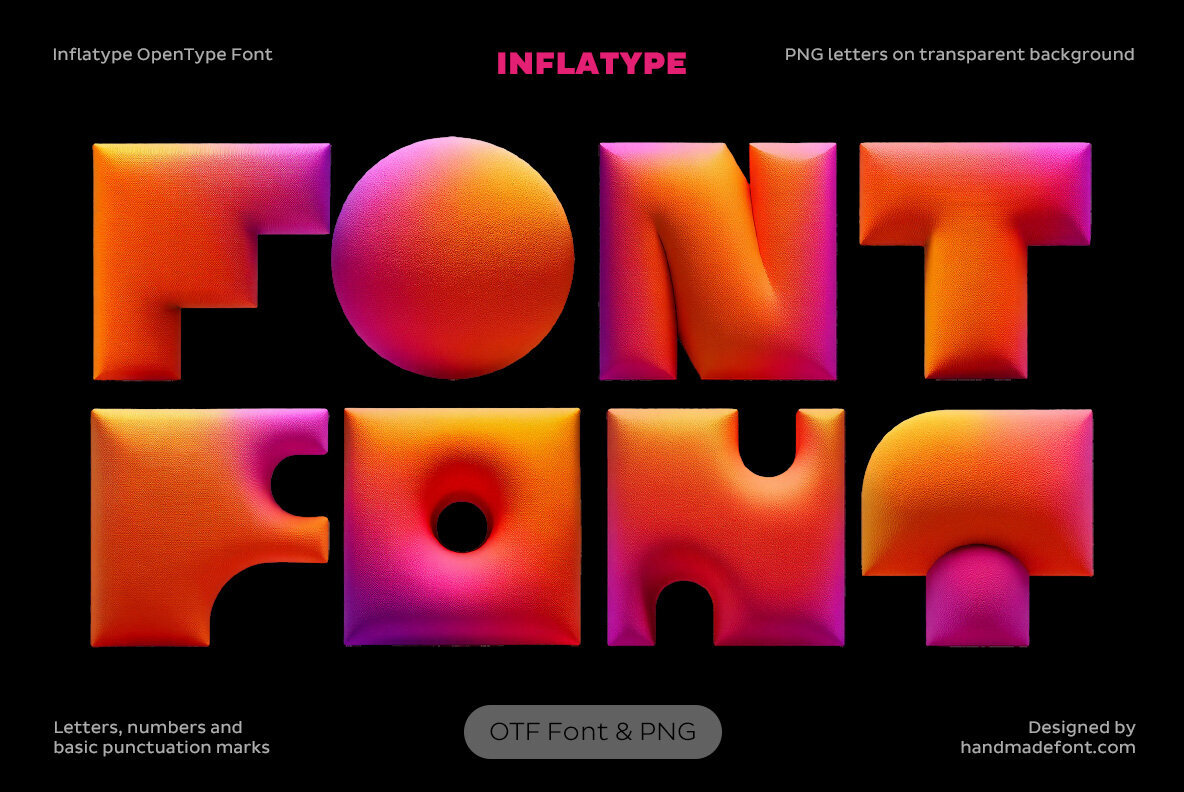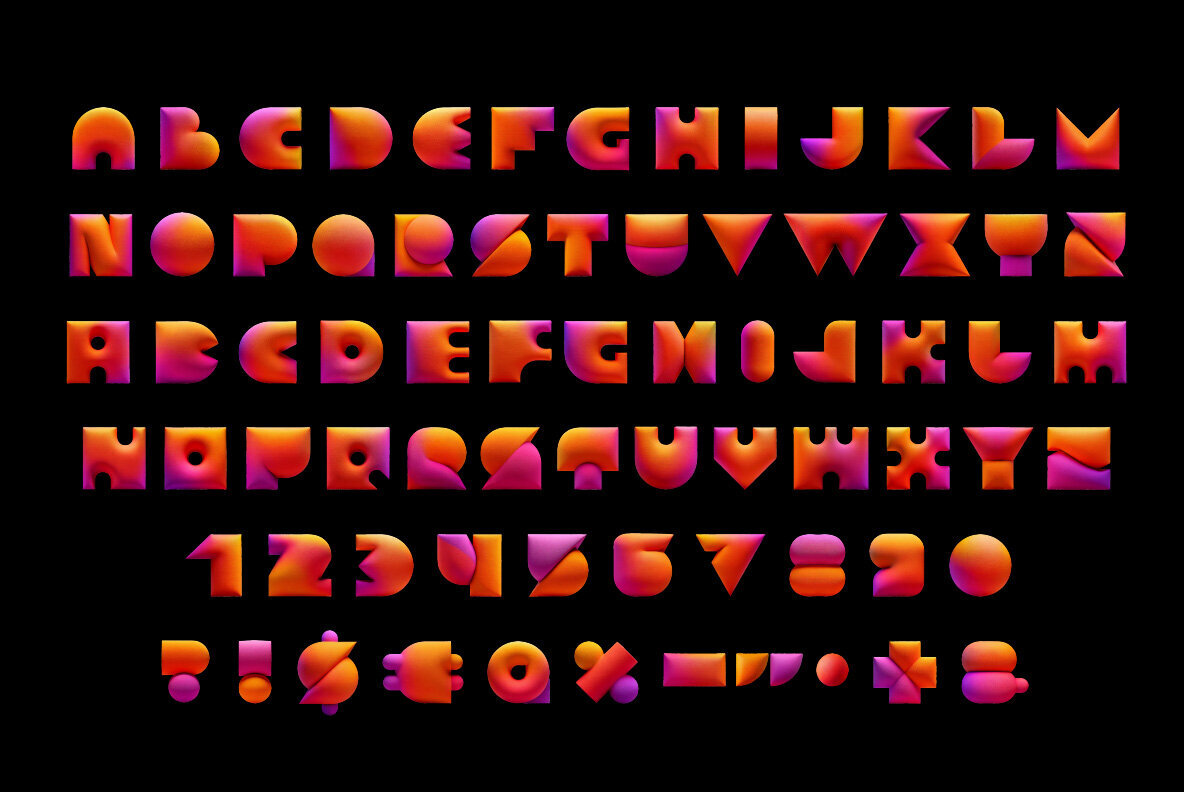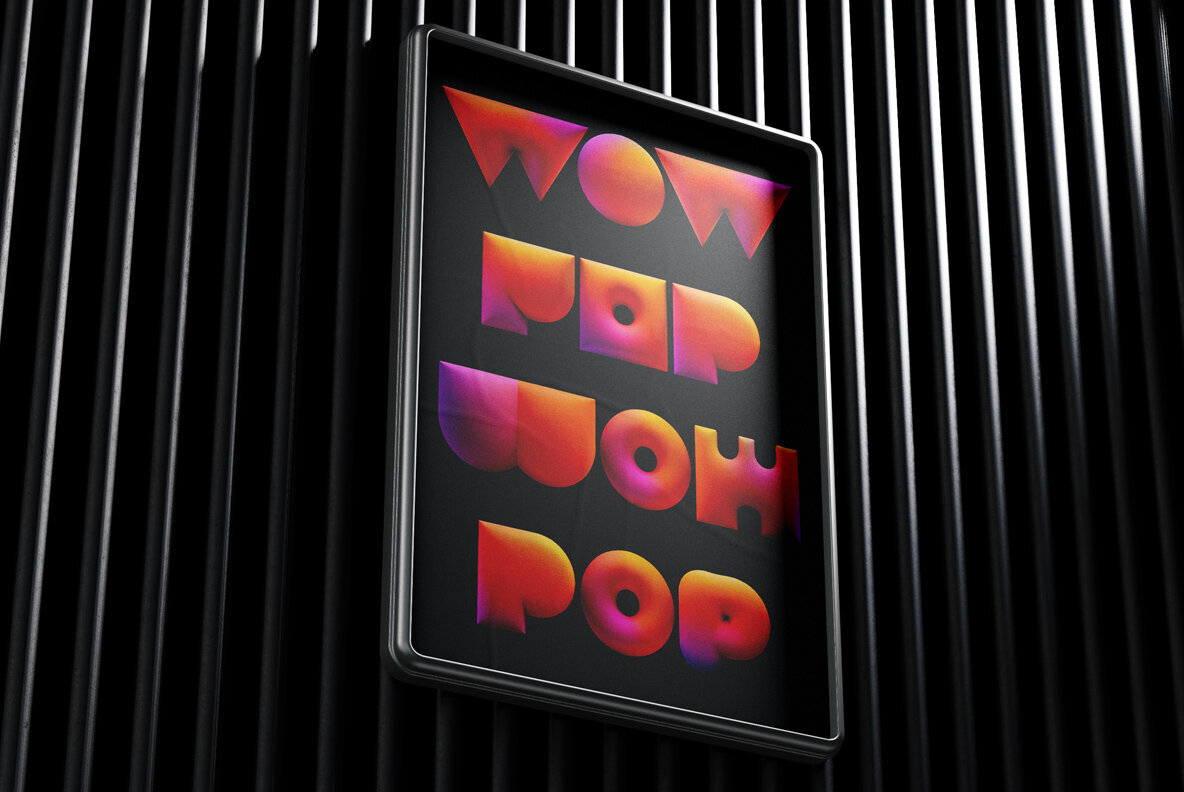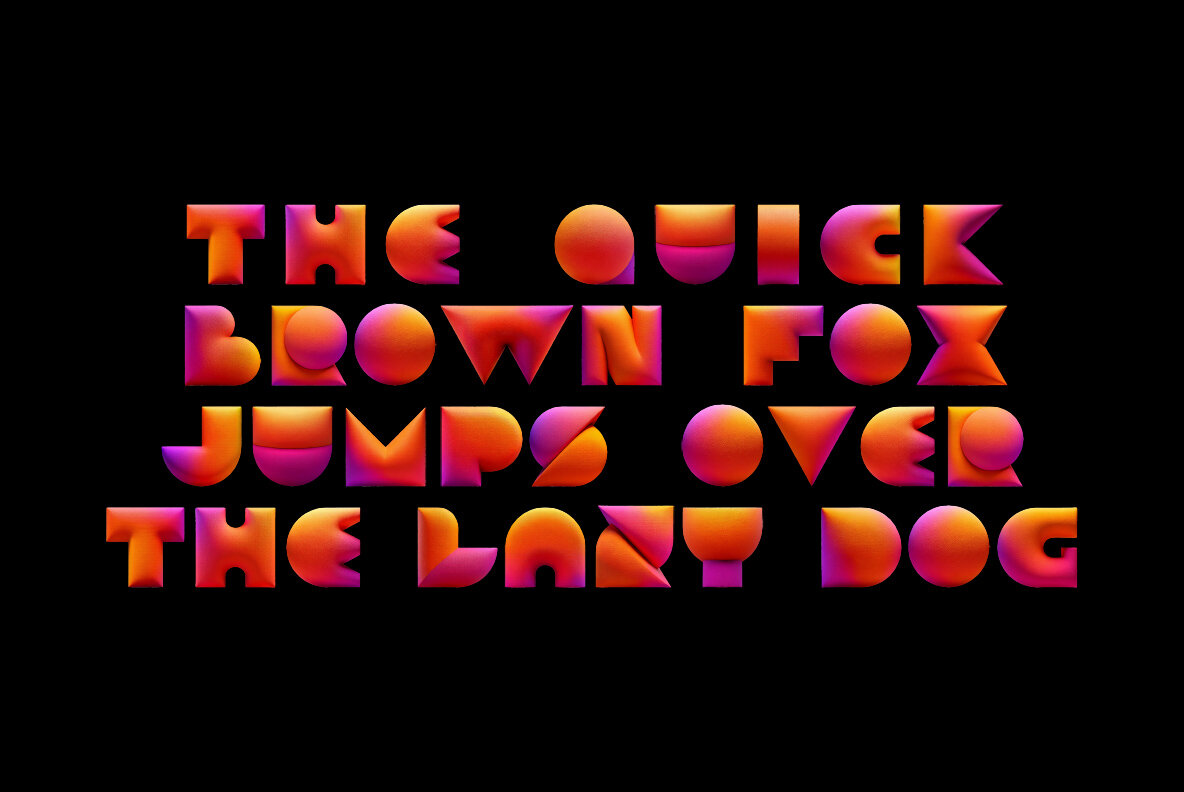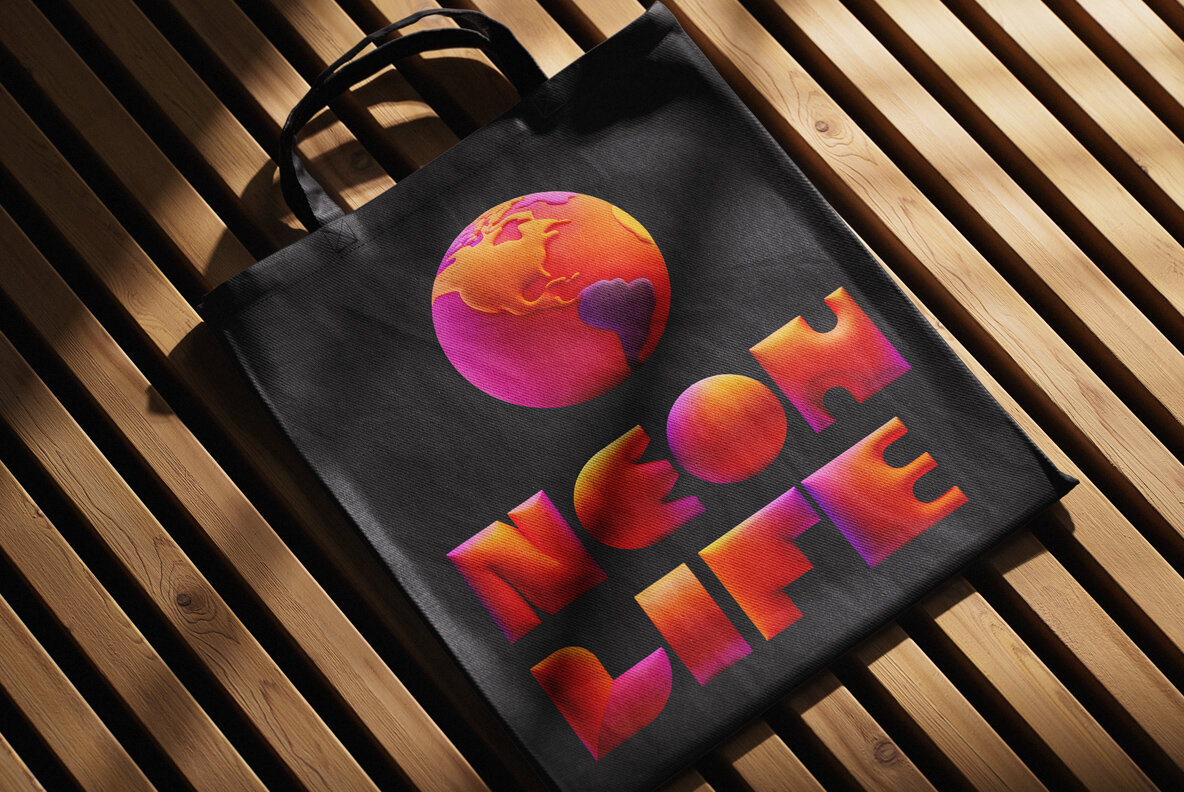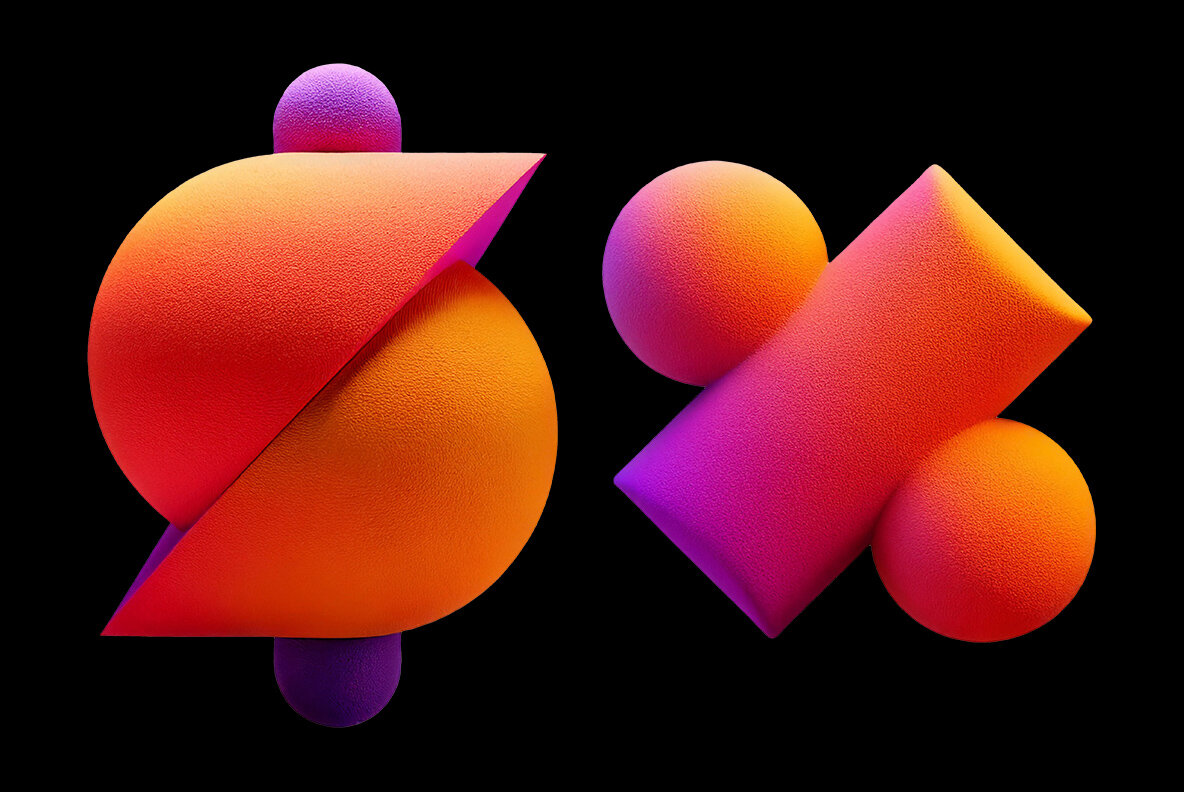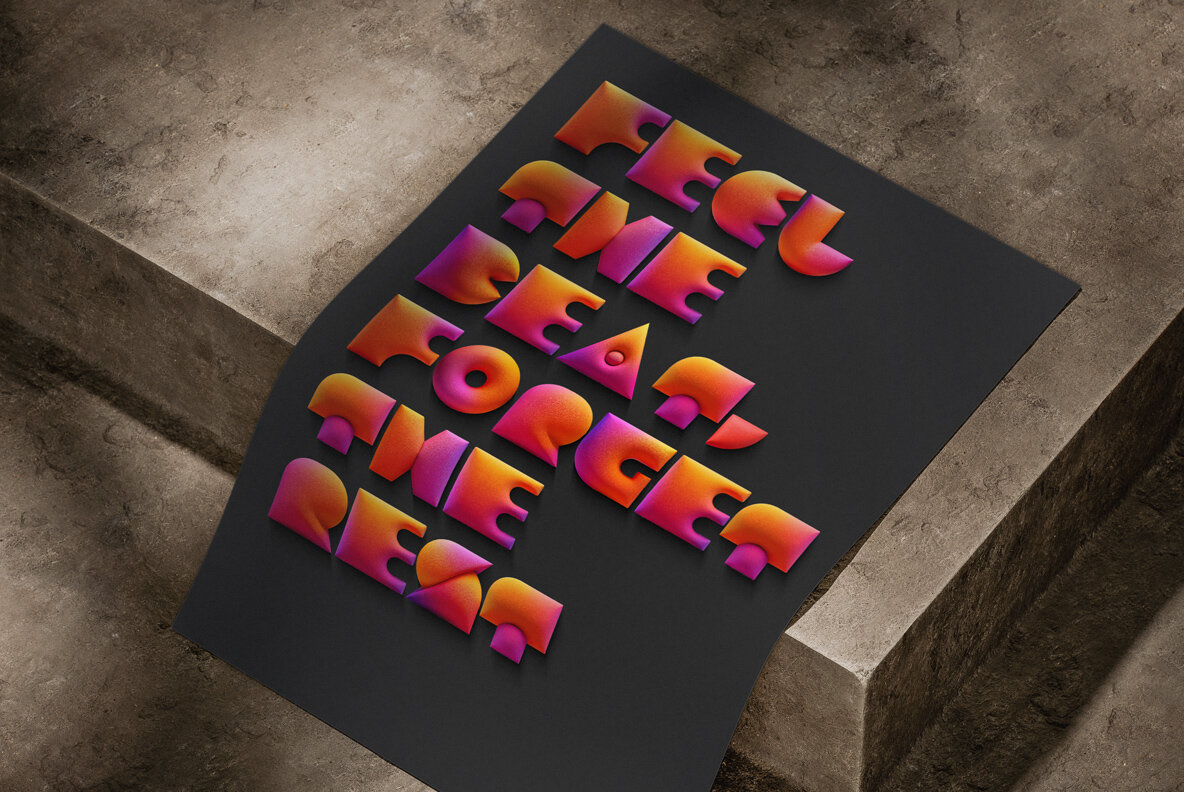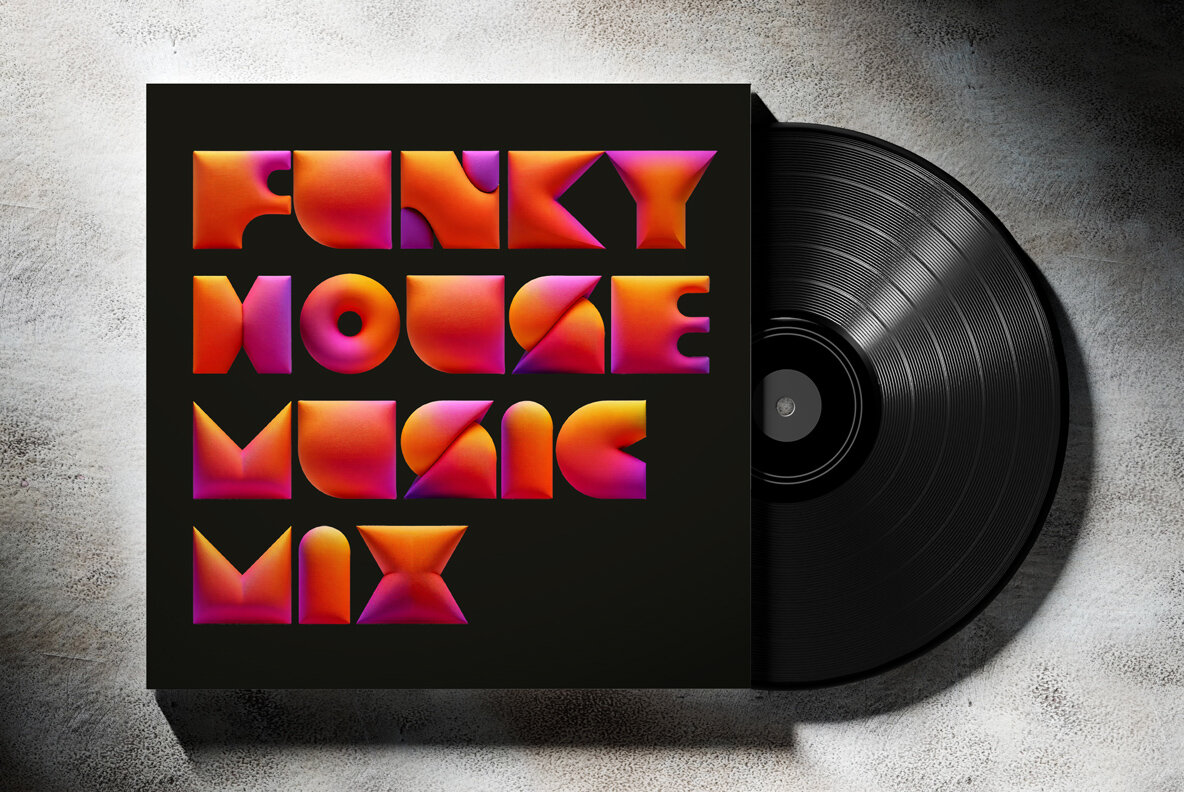
Inflatype Font is where whimsy meets bold design. Imagine letters puffed full of helium and joy—each character looks like it’s ready to float off the page and start a parade. Its chubby curves and soft, balloon-like shapes make it perfect for playful branding, party invites, children’s books, or any project that craves a bit of flair and fluff. It’s fun without trying too hard, and loud in the friendliest way possible. Use Inflatype when your design needs a dose of charm, a pinch of nostalgia, and a whole lot of personality. Warning: this font may cause spontaneous smiles. A high definition OpenType Font. Contains uppercase characters, numerals and basic punctuation. (Draw height roughly 800 pixels). All letters and glyphs that comprises this font you can see on the preview. The font is a colour OpenType file which means this font will show up only in apps that are compatible with color bitmap fonts. Now that OpenType-SVG has been adopted as the industry standard, there is good chance that you can start using color fonts across your favorite software and hardware (Photoshop, Illustrator, InDesign, QuarkXPress, Keynote, PowerPoint, Word etc.) However all characters are also included as individual .png files which can be opened in any graphics software. Each letter comes as a separate PNG file on a transparent background. Each image has the high resolution size of 4000x4000px. This downloadable package contains 167 files. Letters : A B C D E F G H I J K L M N O P Q R S T U V W X Y Z Punctuation and Language Support. Due to the large nature of OpenType-SVG fonts, extended punctuation and language support are not included in the font files. However all punctuation characters and the following accents are included as individual image files in the .png letter set, which can be manually added to your text.